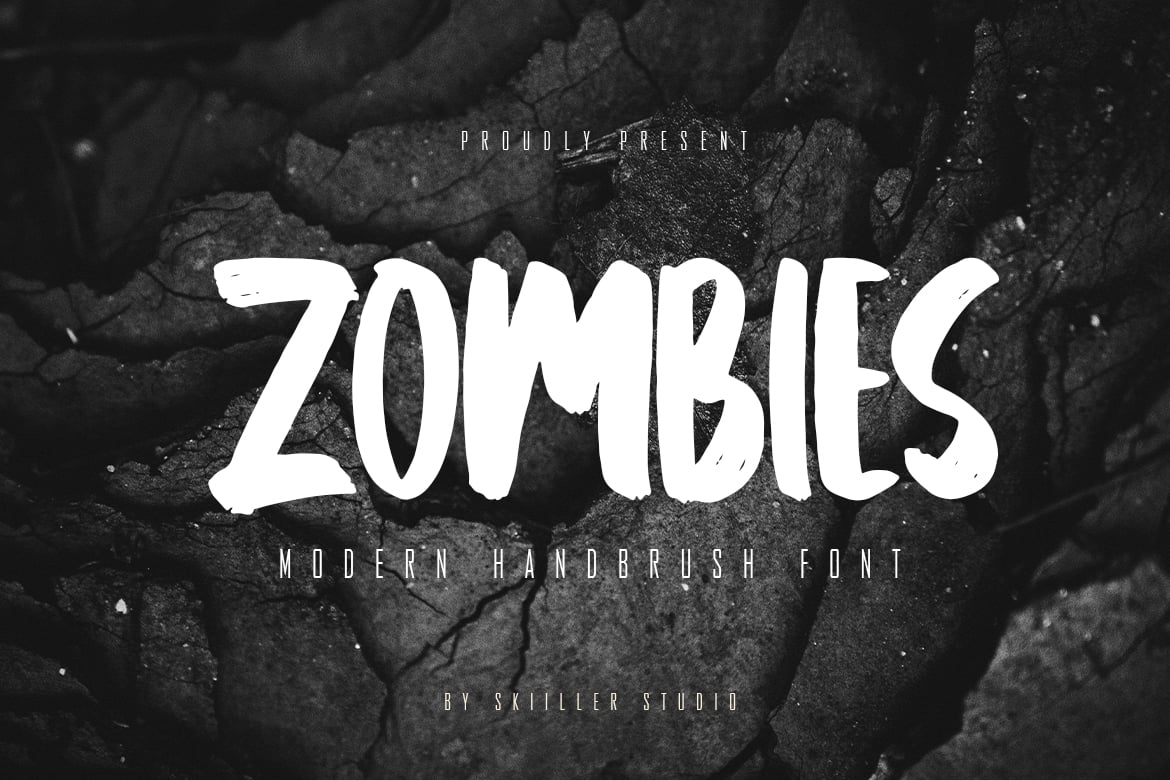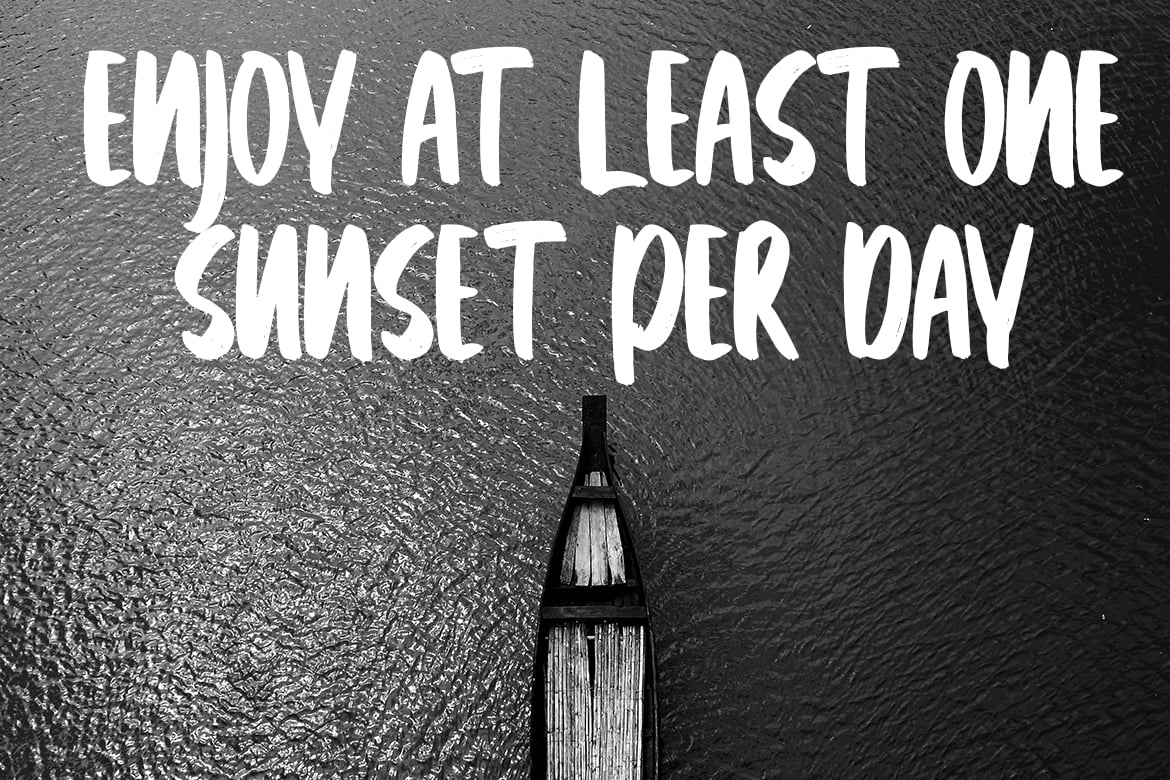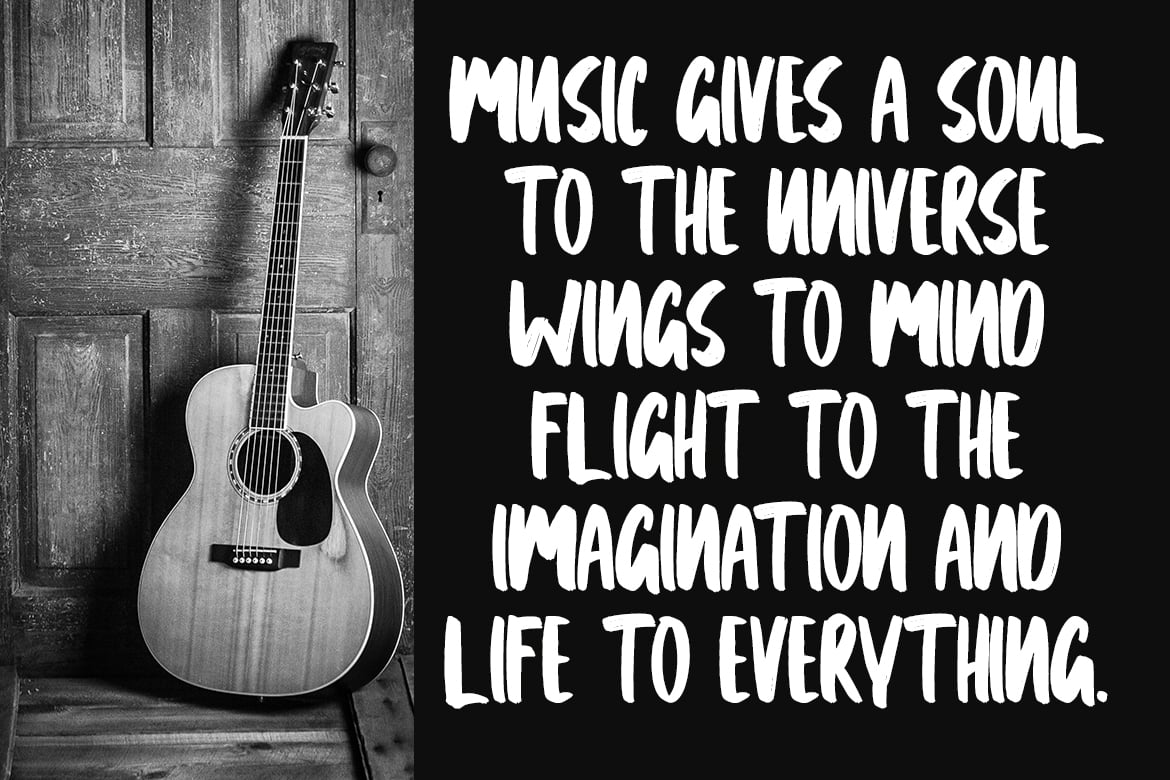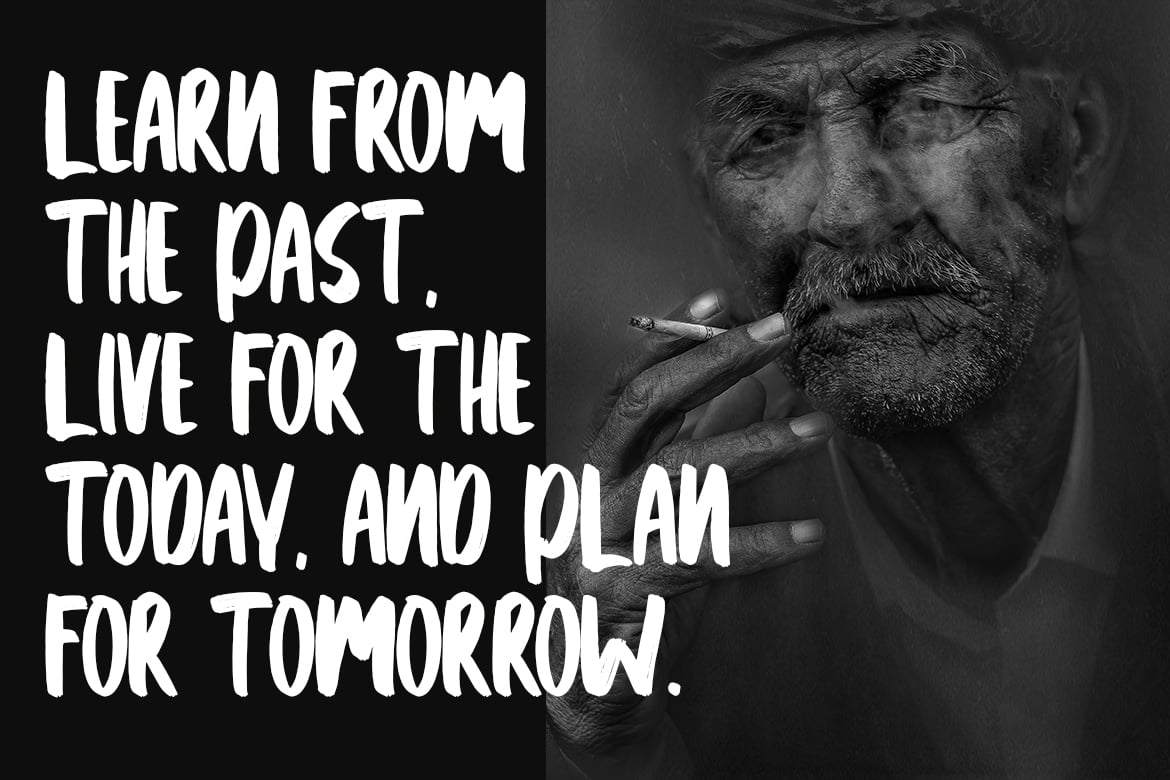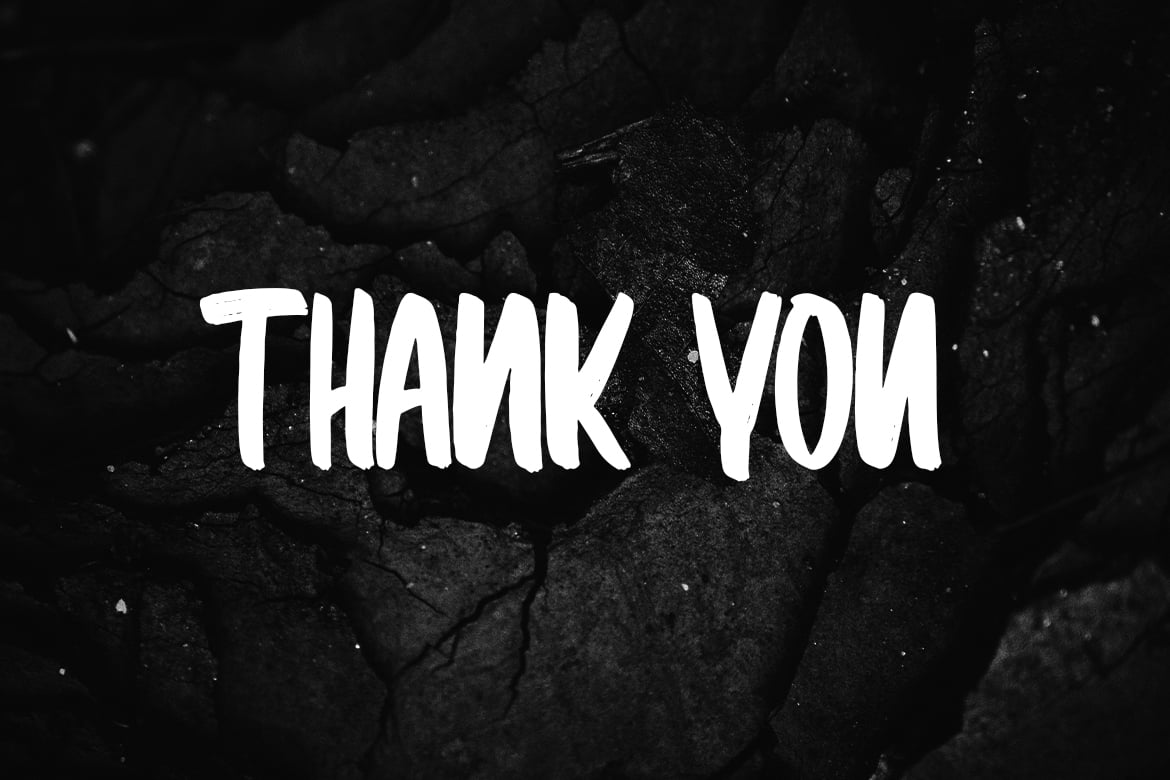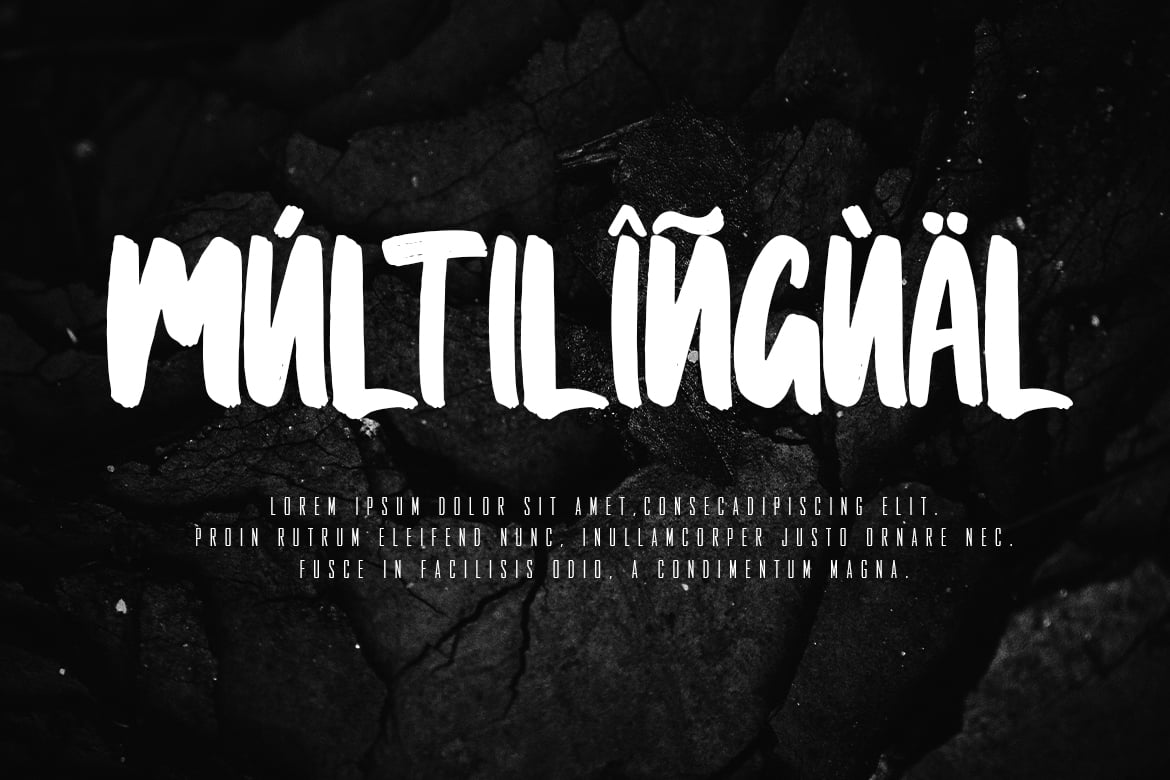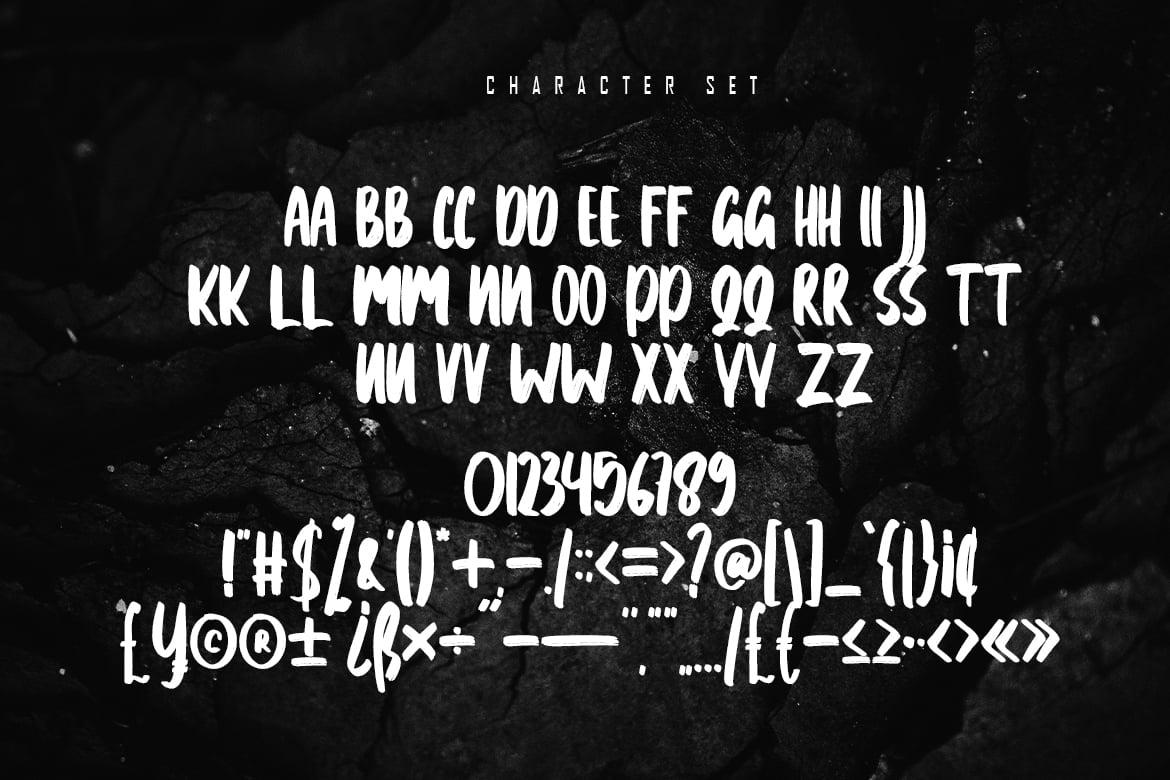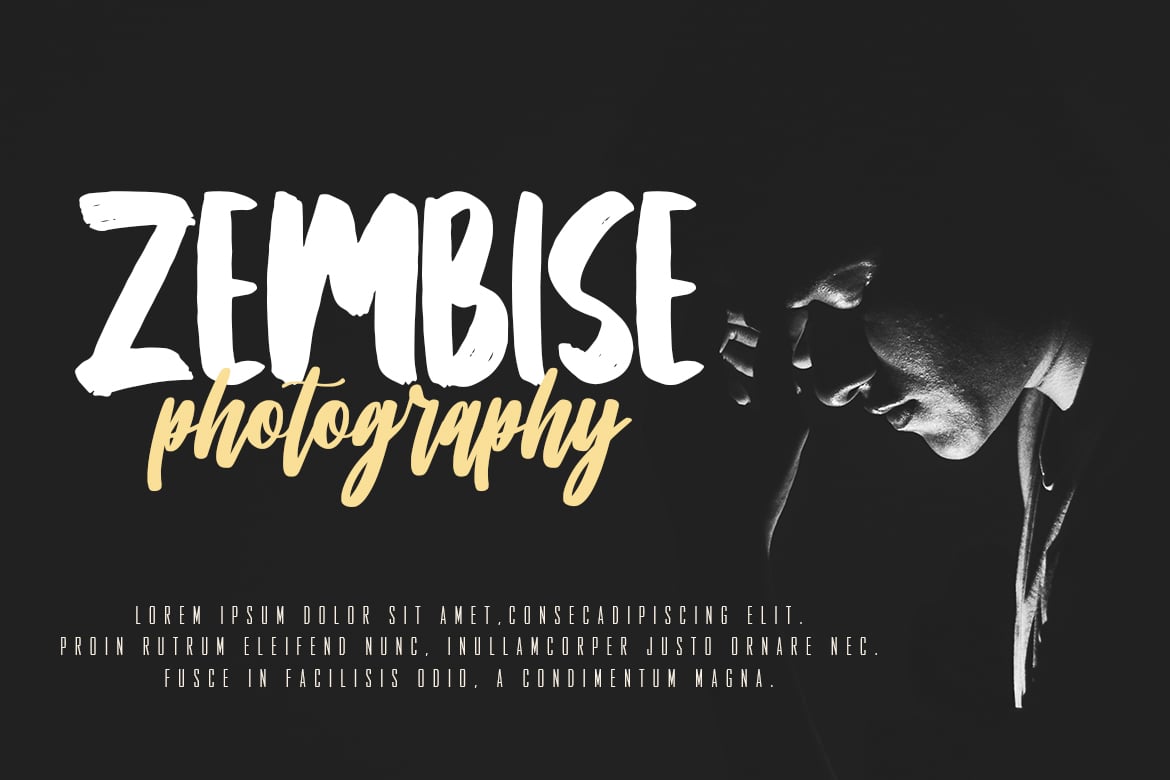
Zombies – Modern Handbrush Font
Zombies is a modern and brushed handwritten font, crafted to give your headlines and logotype projects a stylish touch. This font reads as strong, confident, and dynamic and can add tons of urban character to your designs.